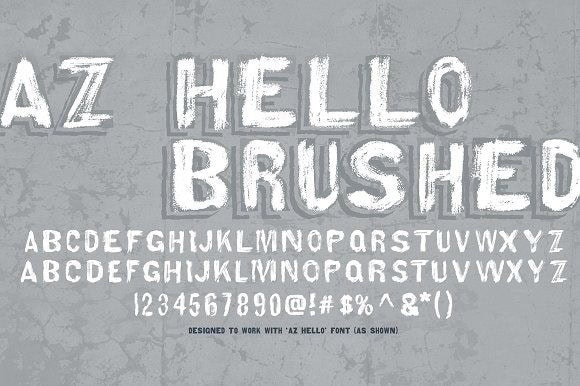
az hello
AZ Hello Font offers a unique blend of playful elegance in TTF, OTF, and WOFF formats. Ideal for casual designs, invitations, and creative projects.
Embrace Creativity with AZ Hello Font
AZ Hello Font, crafted by Alex Zen in 2023, uniquely blends playful elegance with versatility. This font is perfect for a variety of applications, including casual designs, invitations, and creative branding endeavors. Its friendly curves and approachable style make it an excellent choice for both digital and print projects.
Key Features and Format Options of AZ Hello Font
The Inspiration and Creation of AZ Hello Font
Inspired by the need for a fun yet sophisticated typeface, AZ Hello Font was developed to capture attention and convey warmth. Alex Zen’s dedication to typographic excellence is evident in the graceful letterforms and character spacing, allowing for easy readability while retaining a playful aesthetic.
Best Uses for AZ Hello Font
AZ Hello Font is ideally suited for casual and whimsical projects ranging from greeting cards to children’s book covers. Its lively character sets a fun tone, making it perfect for personal branding and creative marketing materials that aim to establish a friendly connection with the audience.